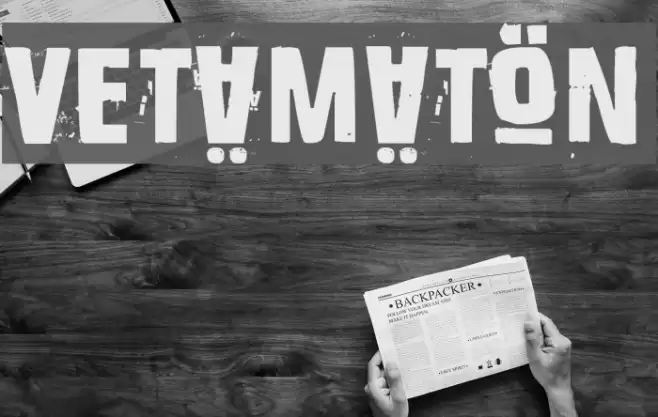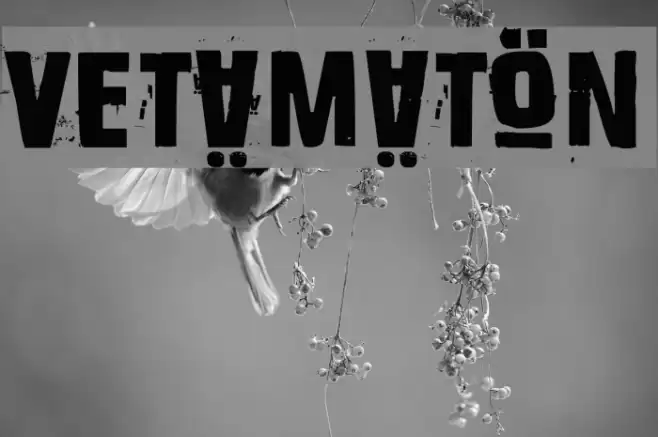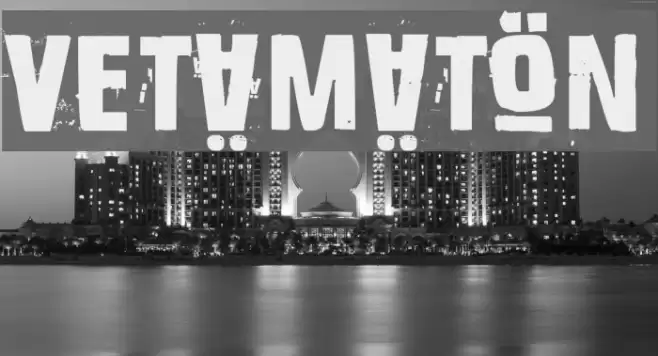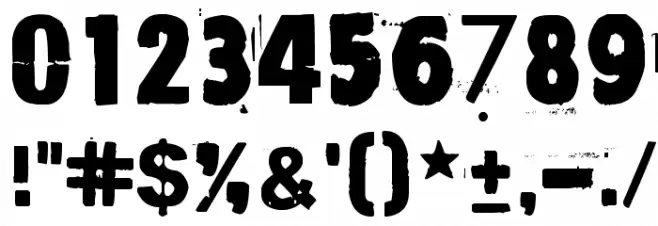
Vetämätön Font
Vetämätön Description
This font features a bold, distressed style with a rugged, worn appearance. The uppercase and lowercase letters are uniform in width, giving a strong, impactful look. The characters have a rough texture, resembling a stencil or a typewriter effect, which adds a vintage and industrial feel. The numbers and special characters maintain this distressed aesthetic, ensuring consistency across all glyphs. This font's boldness and texture make it ideal for projects that require a strong visual impact.
A bold, distressed font with a rugged, vintage appearance from Uncategorized fonts.
- Proposed Projects: Ideal for posters, album covers, branding for industrial or vintage-themed products, and any design requiring a strong, impactful typeface.
- Overall Style: Vintage, Industrial